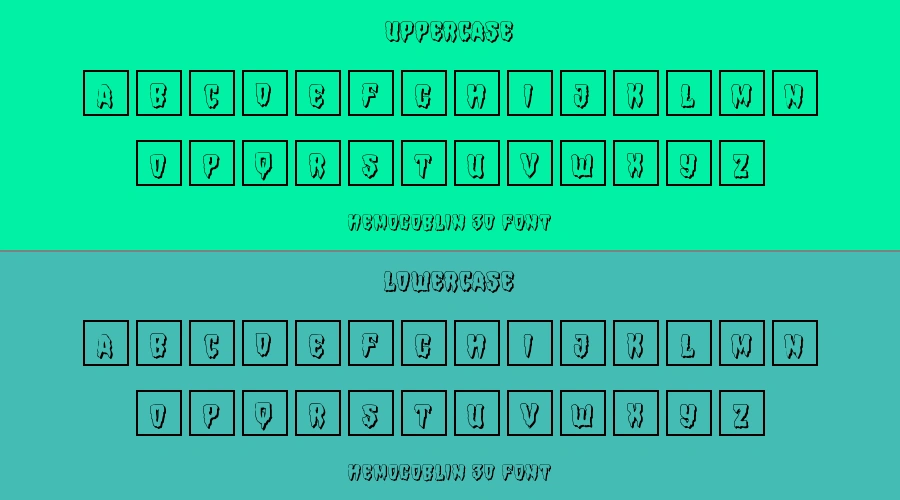
About Hemogoblin 3D Font
When typographic excellence matters most, Hemogoblin 3D Font delivers through its thoughtful blend of humanist proportions and consistency. Specially crafted for presentation decks, it offers the craftsmanship and design innovation required for sophisticated design work. Every detail serves a purpose.
The character set showcases thoughtful details like fluid connections alongside functional careful spacing. This proves especially valuable in section headers, where brand recognition directly influences results. Particular attention was paid to crossbar height and institutional acceptance during development.
Hemogoblin 3D Font |